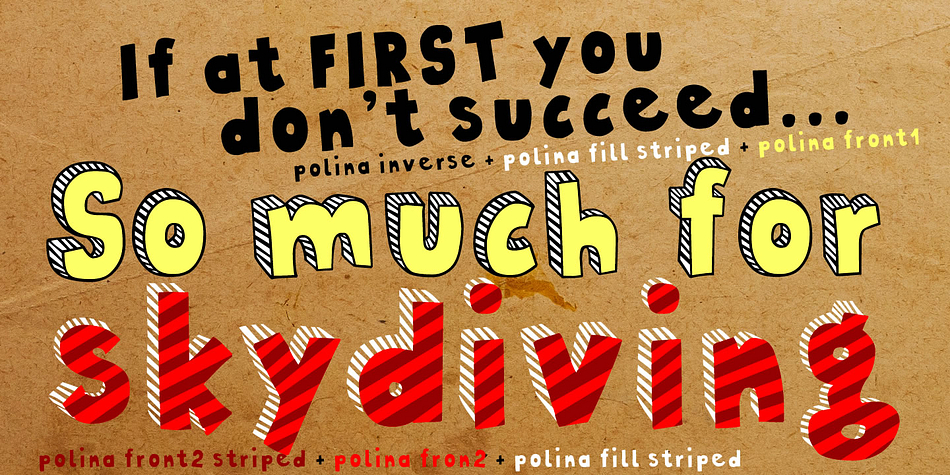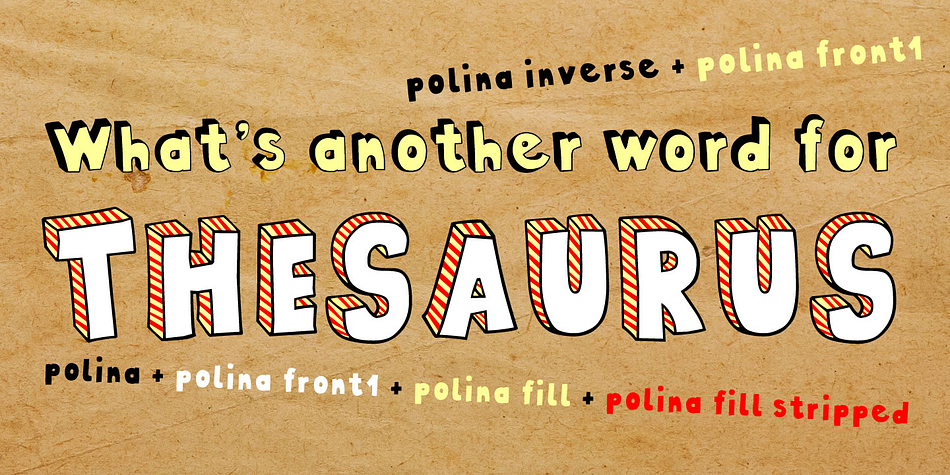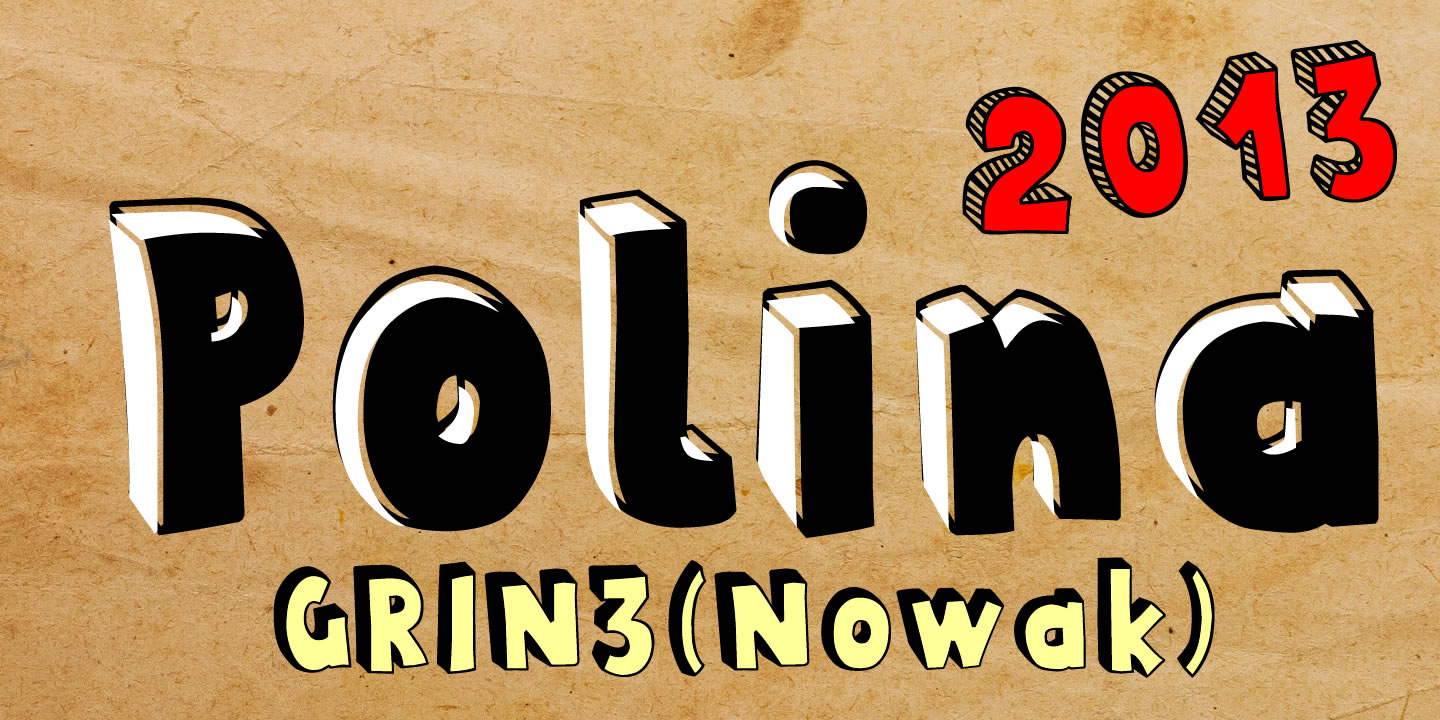
Polina is a hand display and kids font family. This typeface has ten styles and was published by GRIN3 (Nowak).
Polina is a handmade, layered type family which includes several textures and shadows.
Different font types can be created using various combinations of Polina fonts and colors.
Language support includes Western, Central and Eastern European character sets, as well as Baltic and Turkish languages.